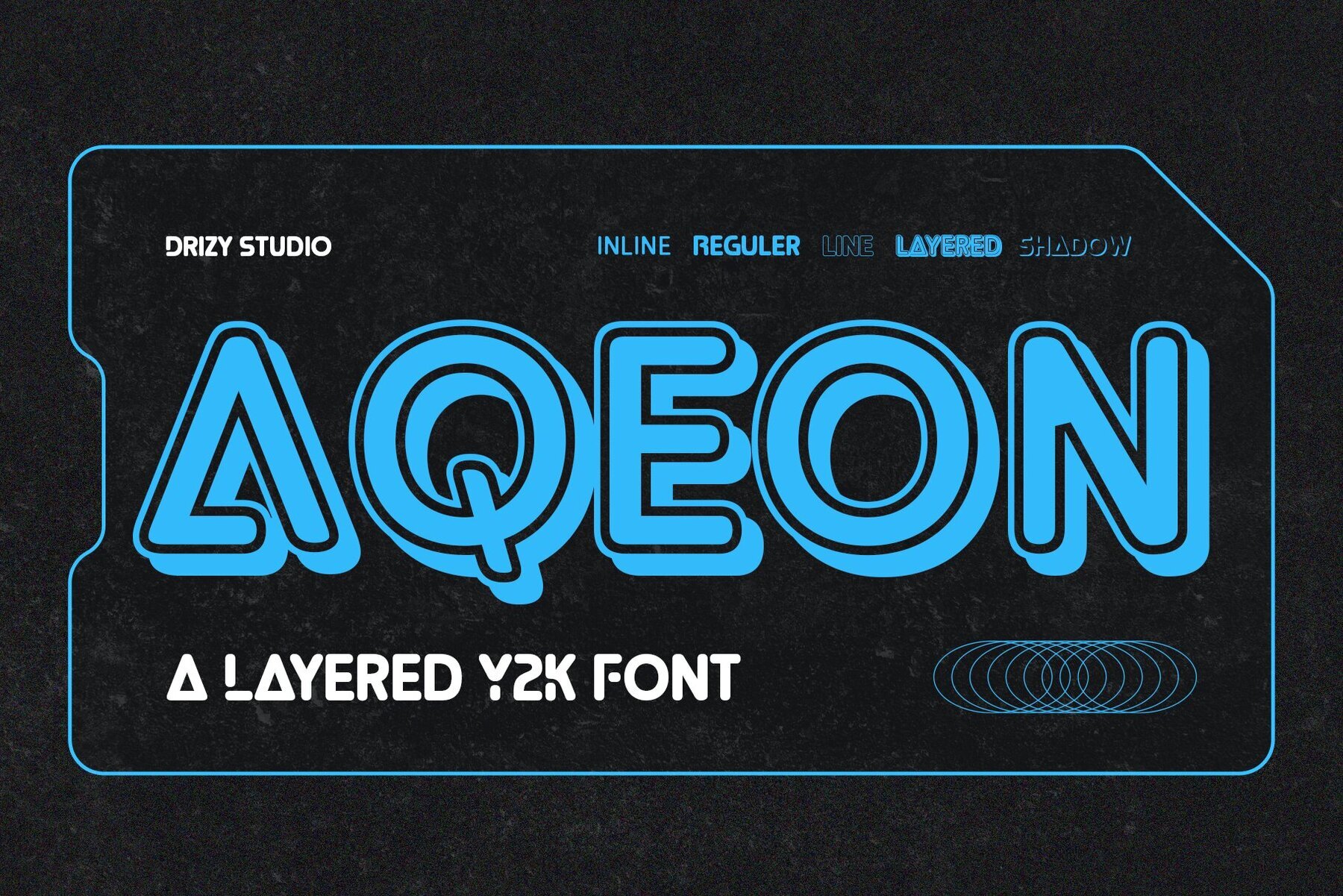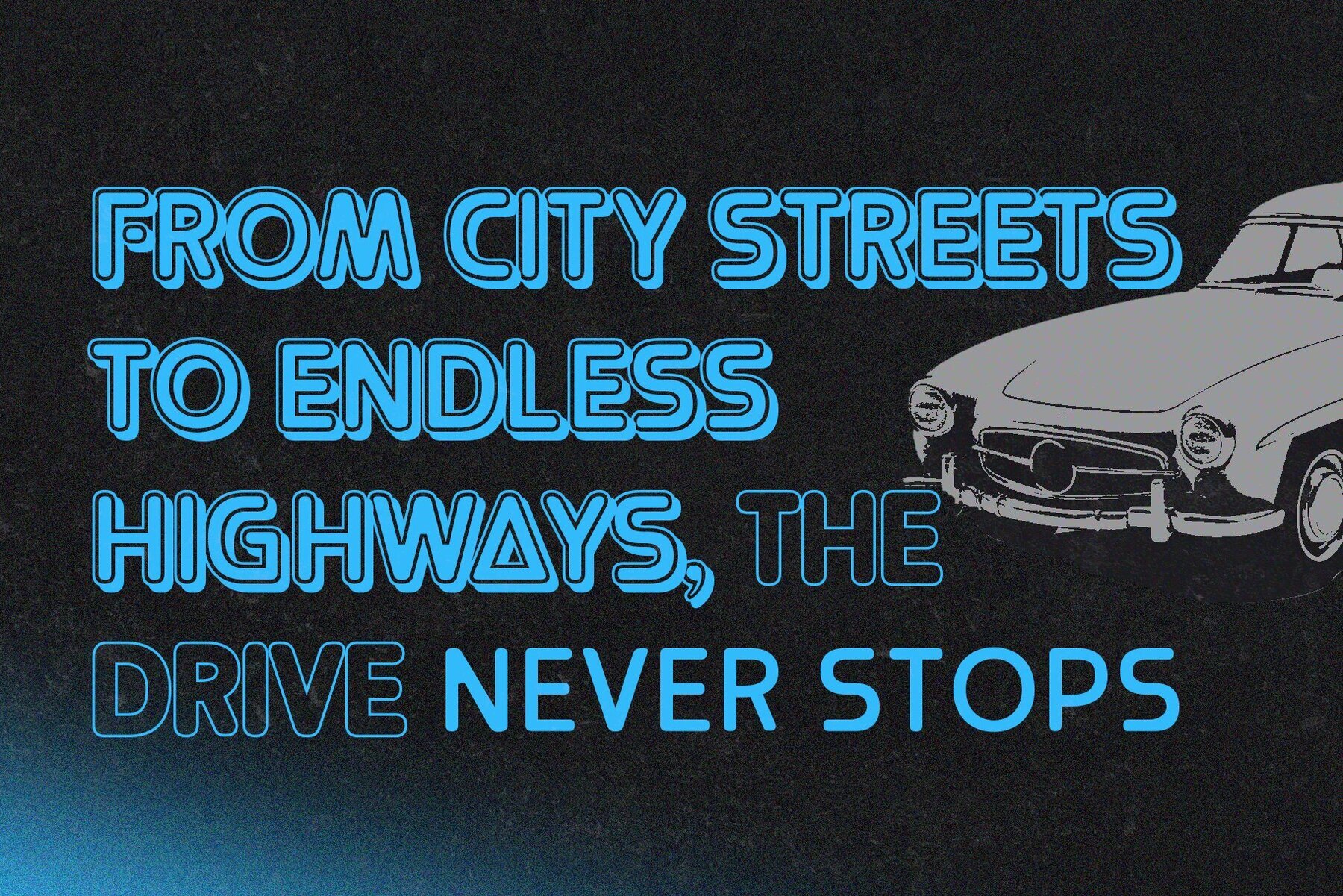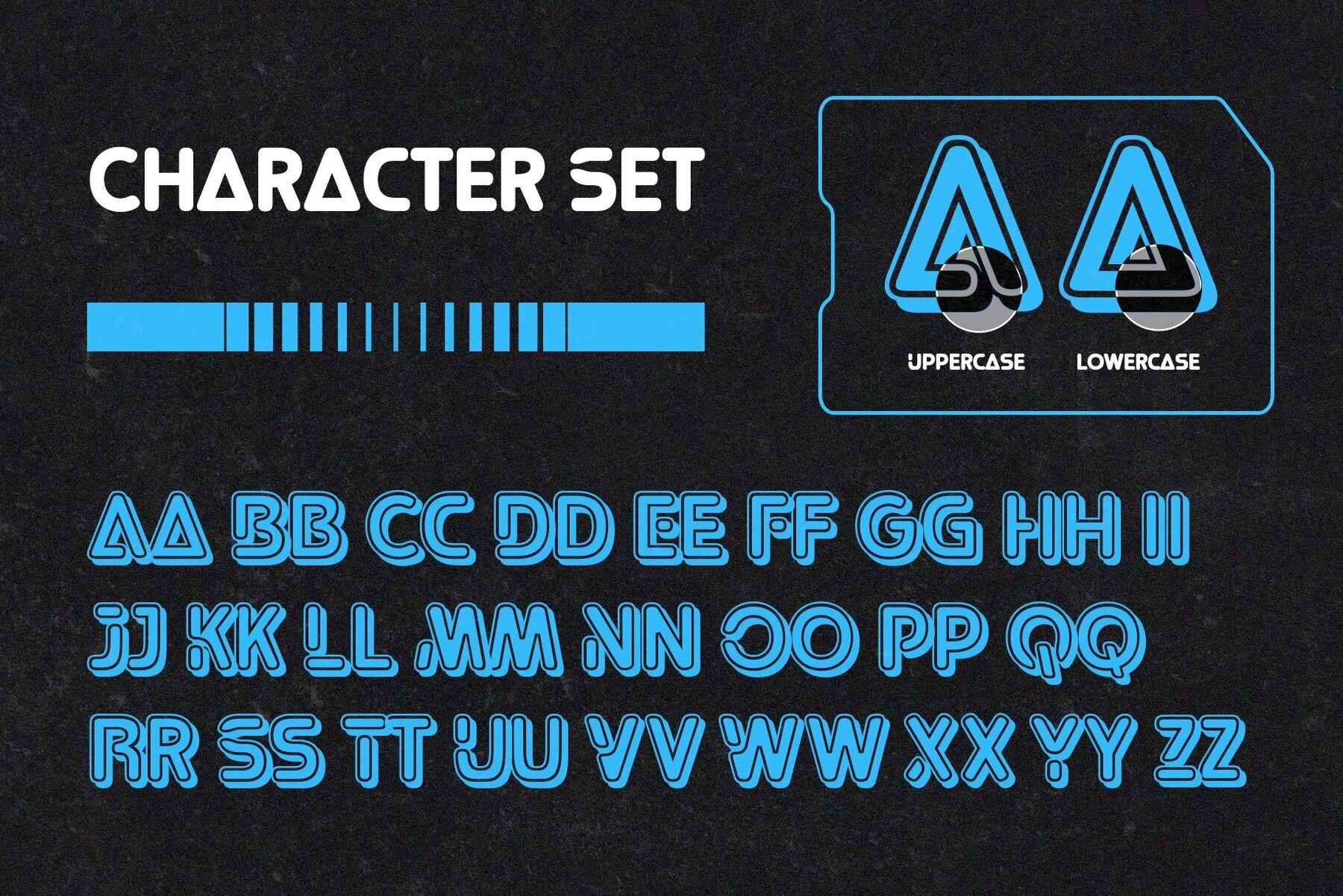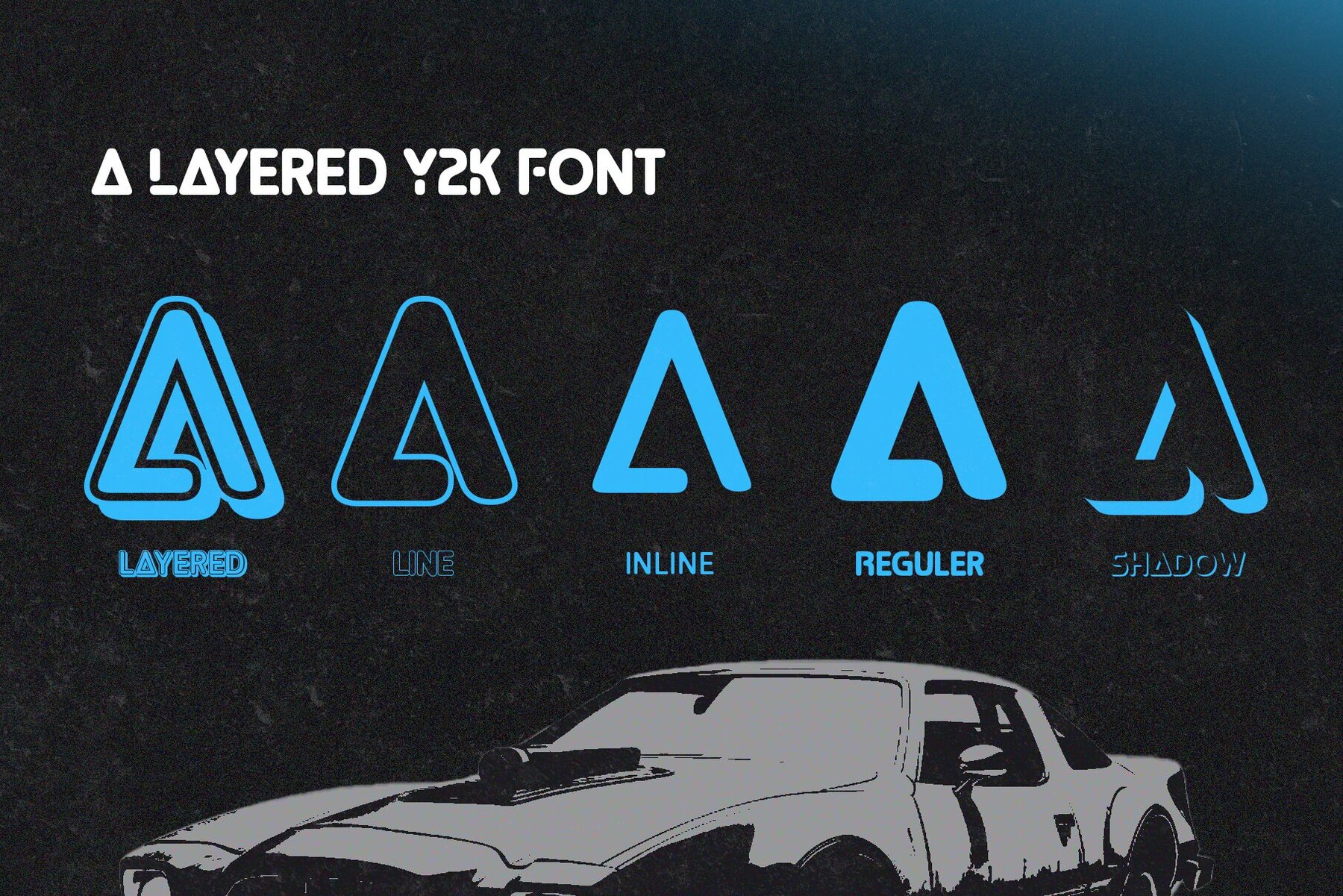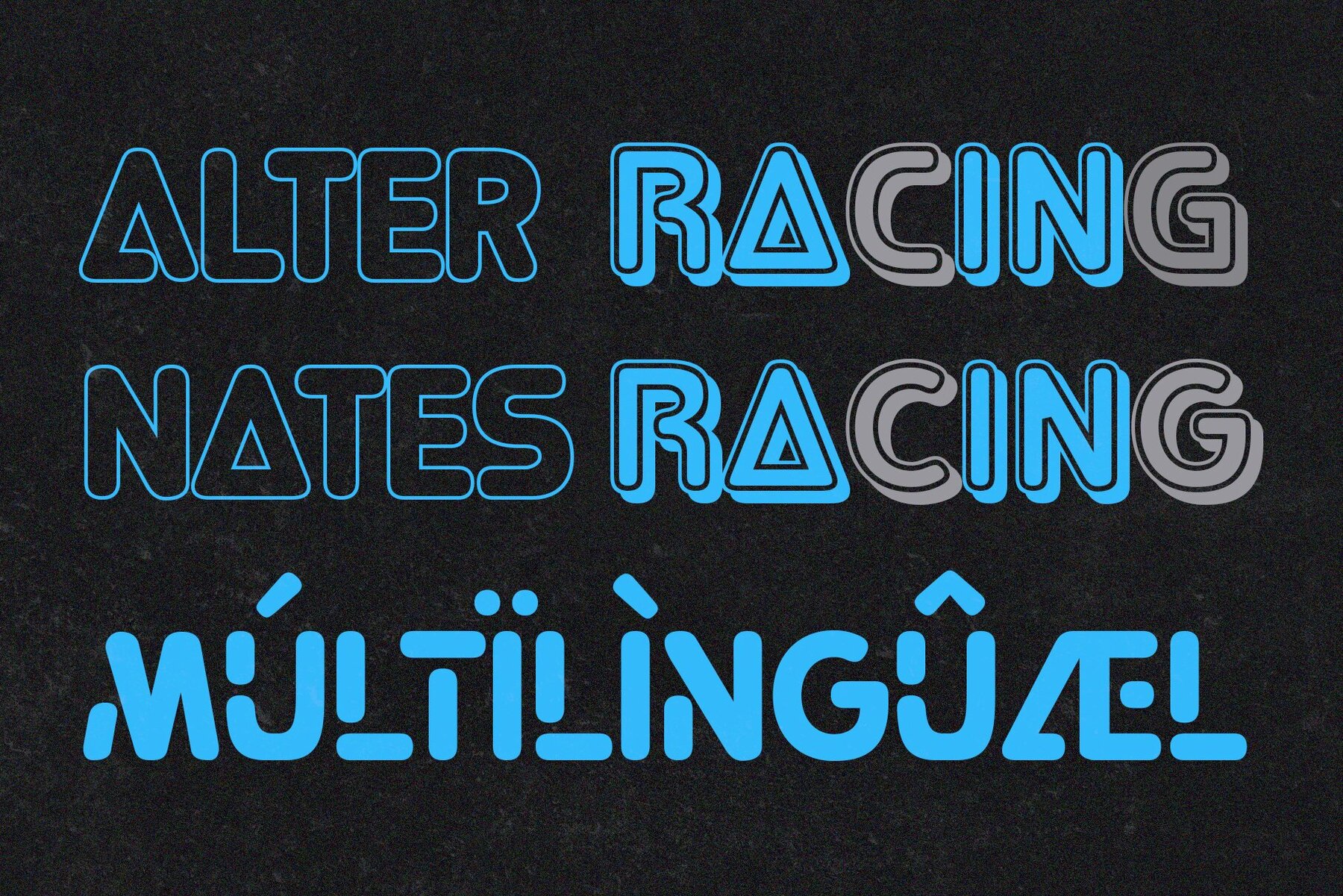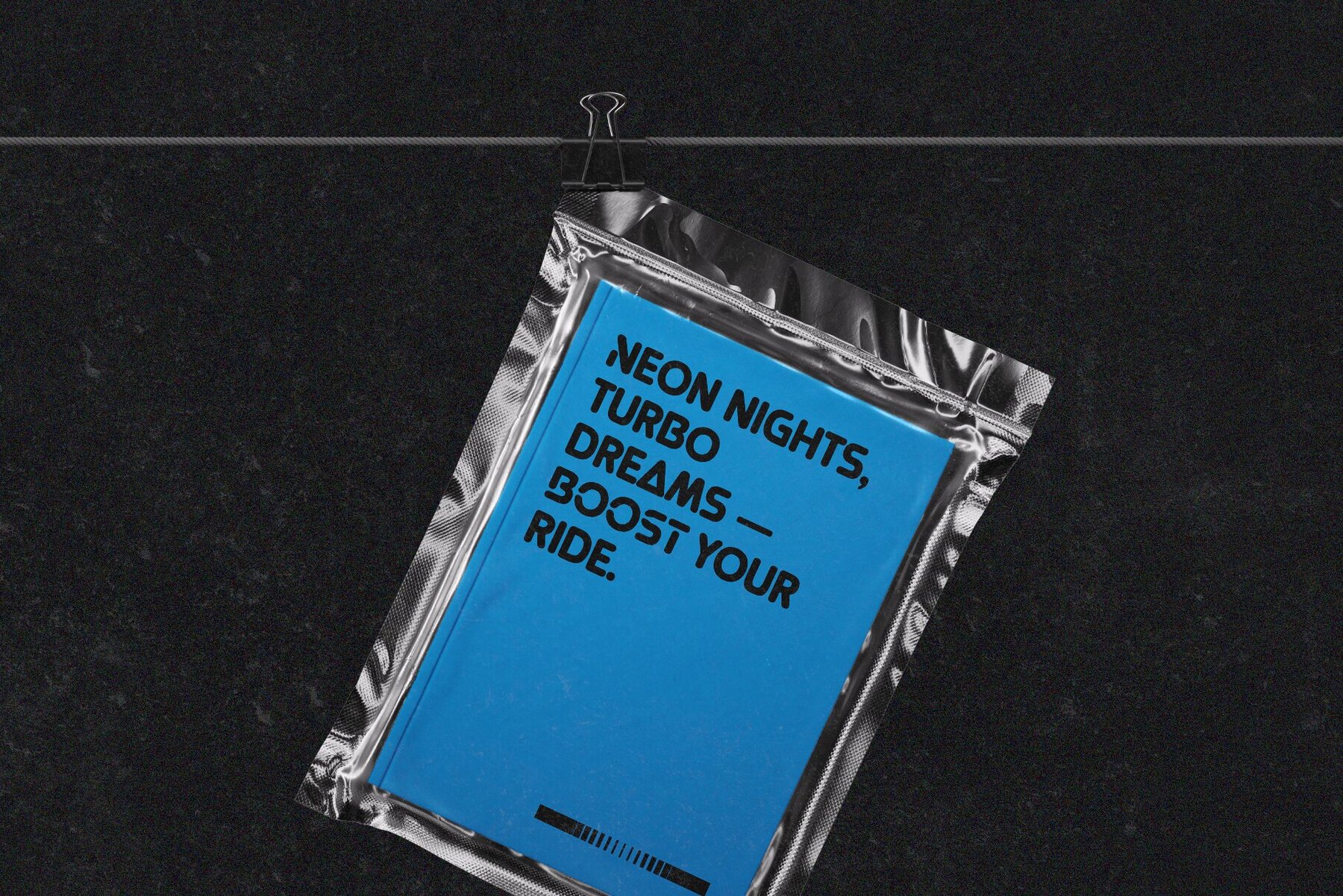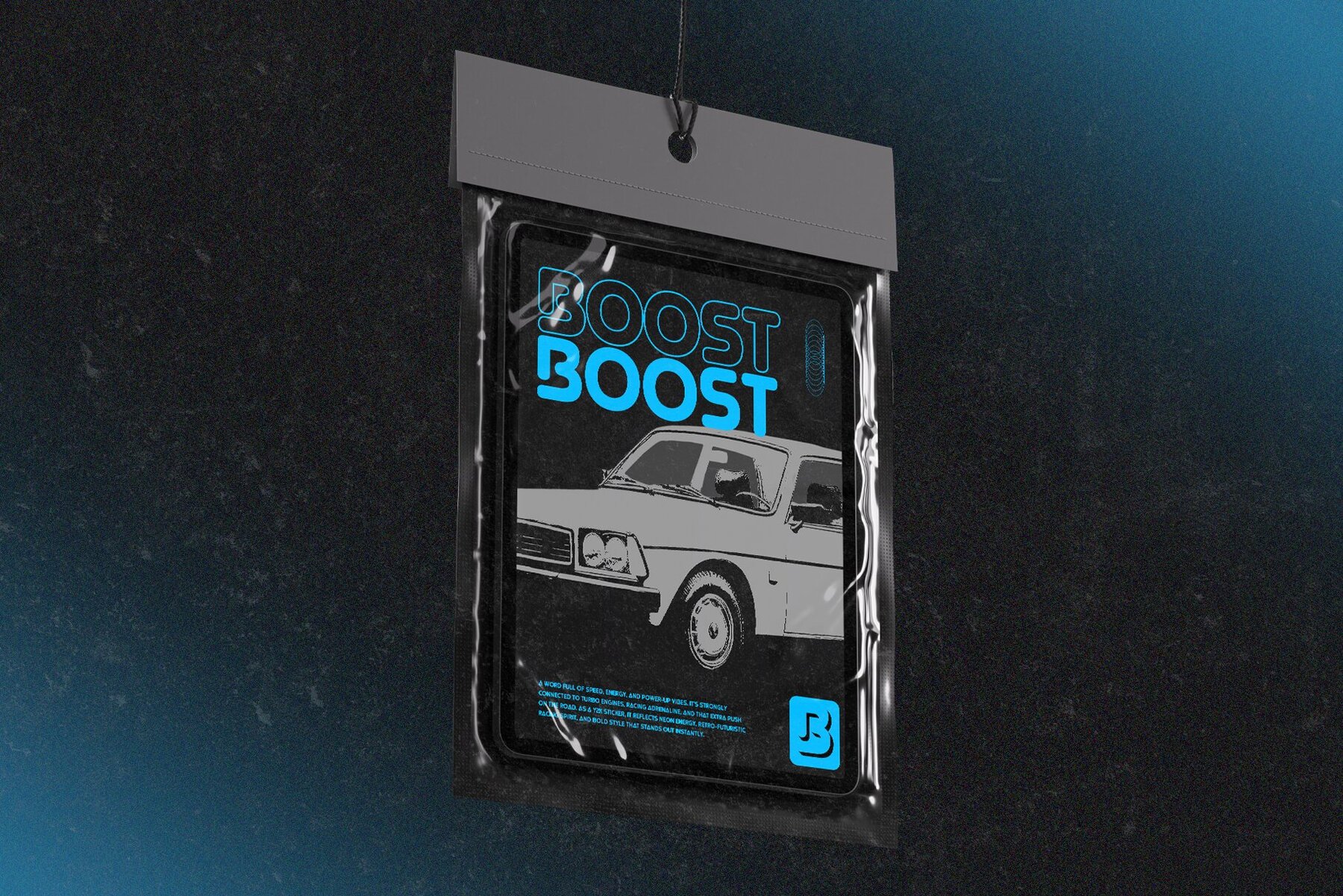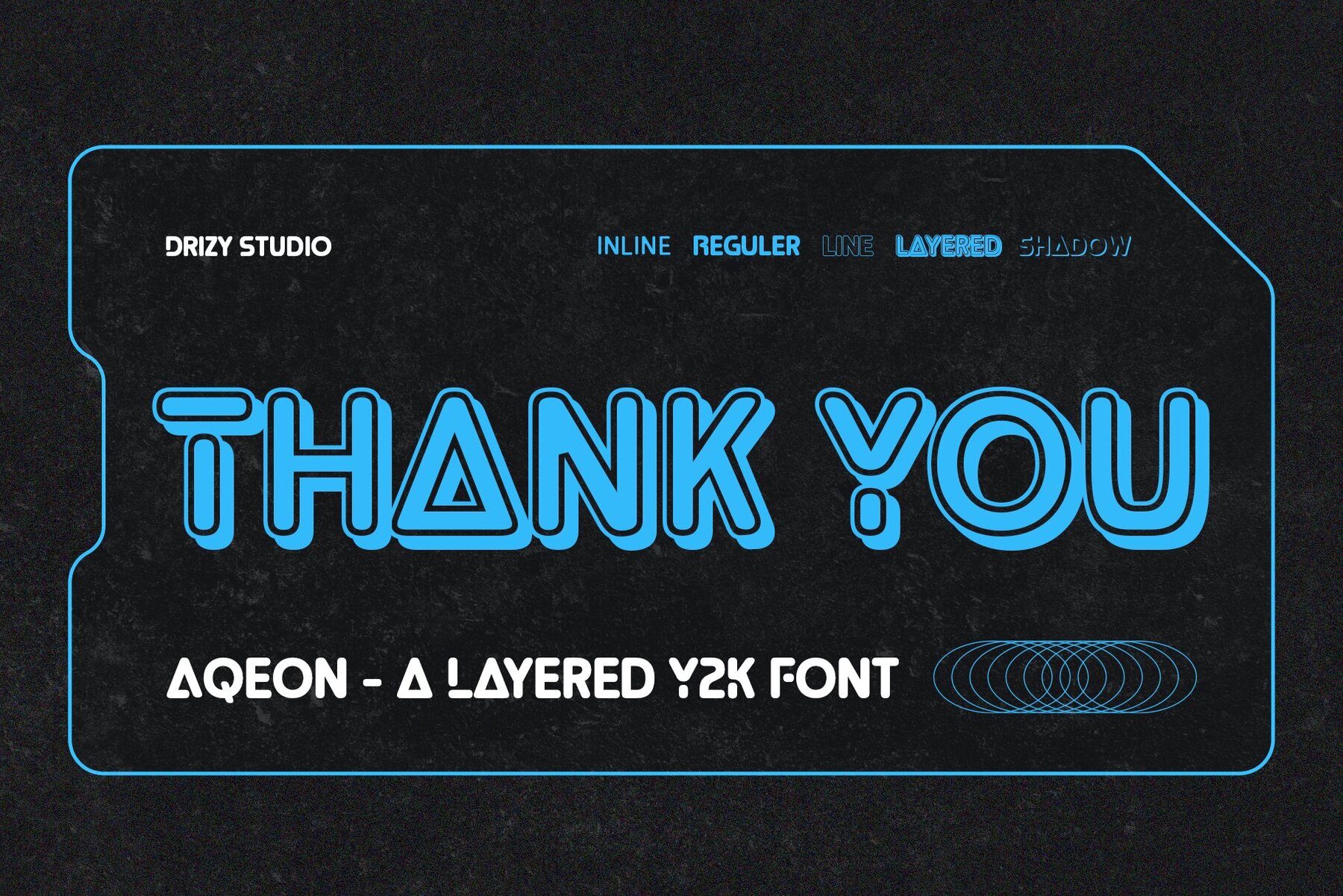
Aqeon Font
Embrace the digital nostalgia of the early 2000s with Aqeon, a bold layered typeface that channels Y2K aesthetics. With its geometric forms and versatile layering options, this font is ideal for creating standout logos, posters, apparel, and album covers. Aqeon captures the essence of retro tech with elements like metallic gradients and glossy magazine inspiration, offering a design that feels both nostalgic and cutting-edge.Aqeon: Futuristic Y2K Font